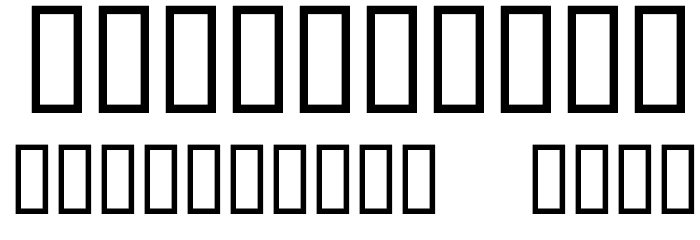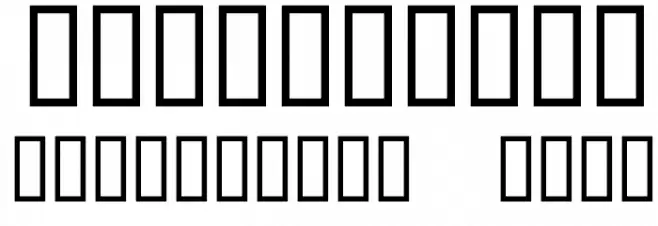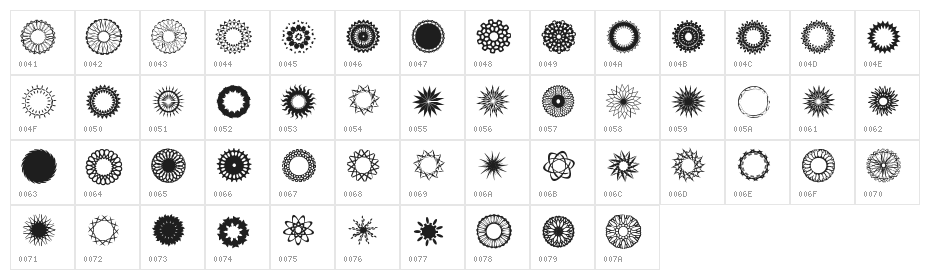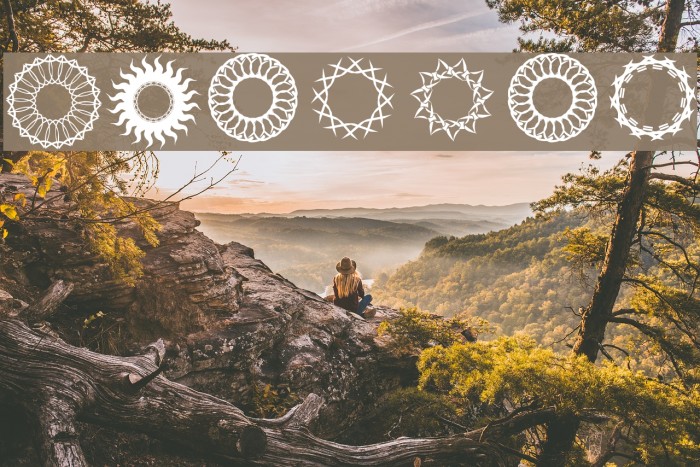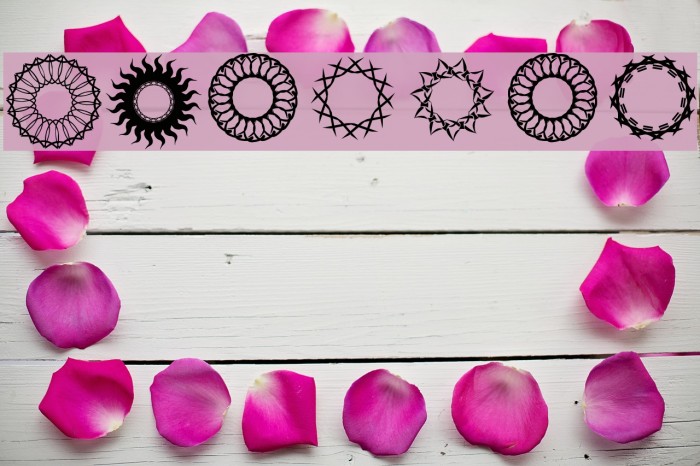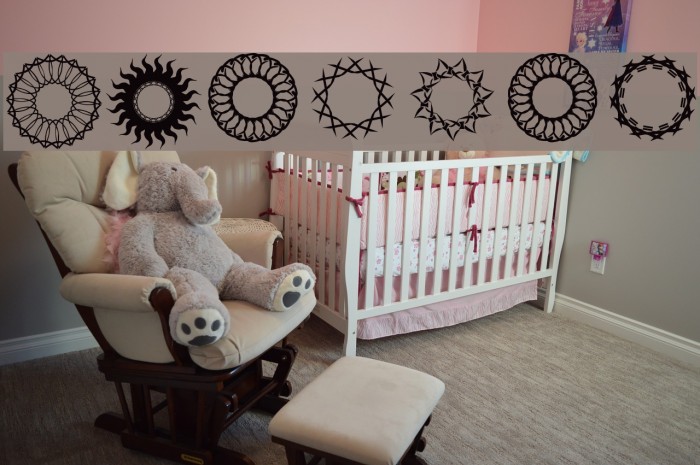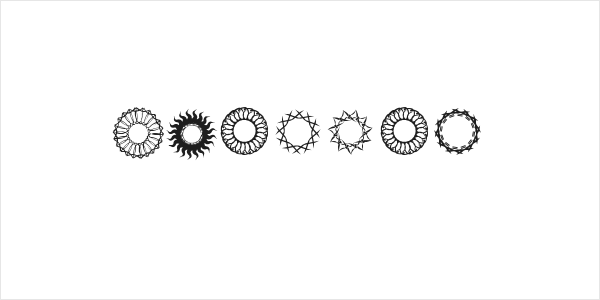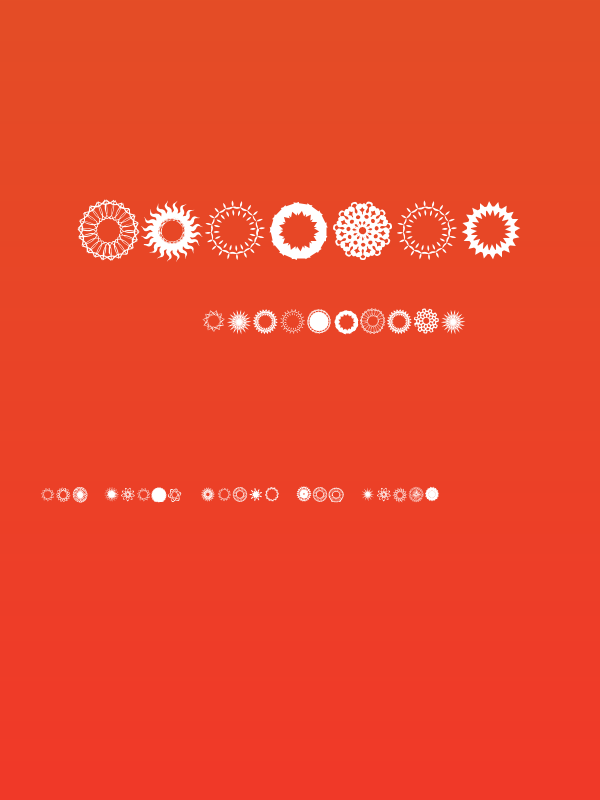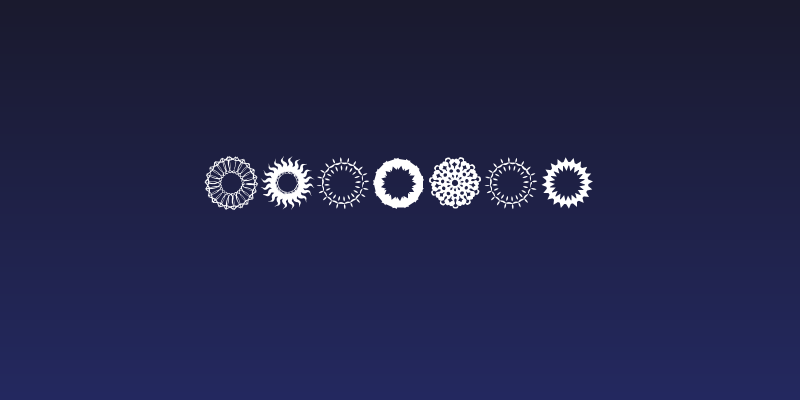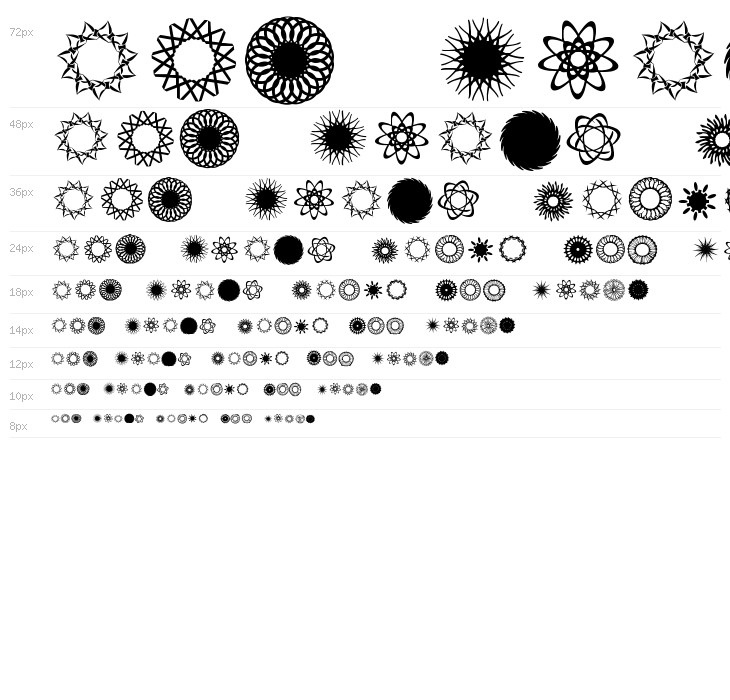
ASorion Font
ASorion Description
A decorative display set featuring intricate, circular geometric and spirograph-like shapes for uppercase, lowercase, and numerals, with punctuation rendered as bold rectangular frames. The glyphs are highly ornamental, each character unique, with no traditional letterforms present.
| Overall Style | Decorative, Geometric, Ornamental |
| Use Case | Logos, Headlines, Artistic projects, Decorative elements |
| Proposed Projects | Posters, album covers, branding, digital art, decorative initials, pattern design. |